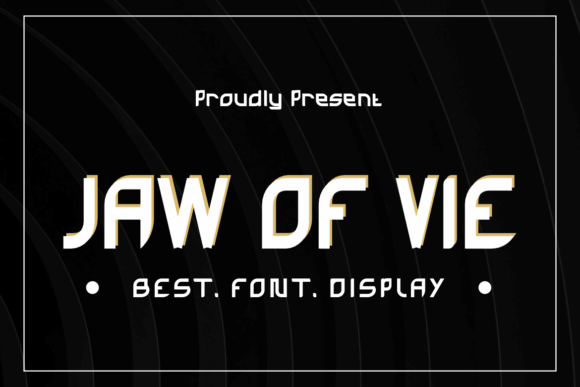
Introducing Jaw of Vie, an emblem of boldness and originality among display fonts. Crafted by the skilled hands of maikofarazhatta, this font exudes a timeless allure that speaks to the essence of creative expression.
Jaw of Vie's commanding presence commands attention, leaving an indelible mark on any project it graces. Its robust structure and dynamic curves evoke a sense of strength and power, making it perfect for logos that demand authority and distinction.
Unleash your inner artist as you explore the limitless possibilities of Jaw of Vie in t-shirt designs. With its edgy character and raw energy, your designs will emanate an aura of untamed creativity, captivating the hearts of those who behold them. Experience the thrill of creating designs that push boundaries and leave a lasting impression.
Beyond the realm of logos and t-shirt designs, Jaw of Vie flourishes in the dynamic world of esports. Its vibrant personality and competitive spirit infuse gaming environments with an electrifying energy, immersing players in an adrenaline-fueled experience. Victory awaits those who embrace the power of Jaw of Vie, as it propels them to the forefront of the digital arena.
Jaw of Vie's versatility extends beyond traditional design domains, finding harmony in a myriad of creative contexts. Whether you seek to craft eye-catching posters, mesmerizing social media graphics, or captivating website banners, Jaw of Vie will elevate your creations with its charismatic presence. Its ability to adapt seamlessly to any project ensures that your designs will stand out, captivating audiences and leaving them in awe.